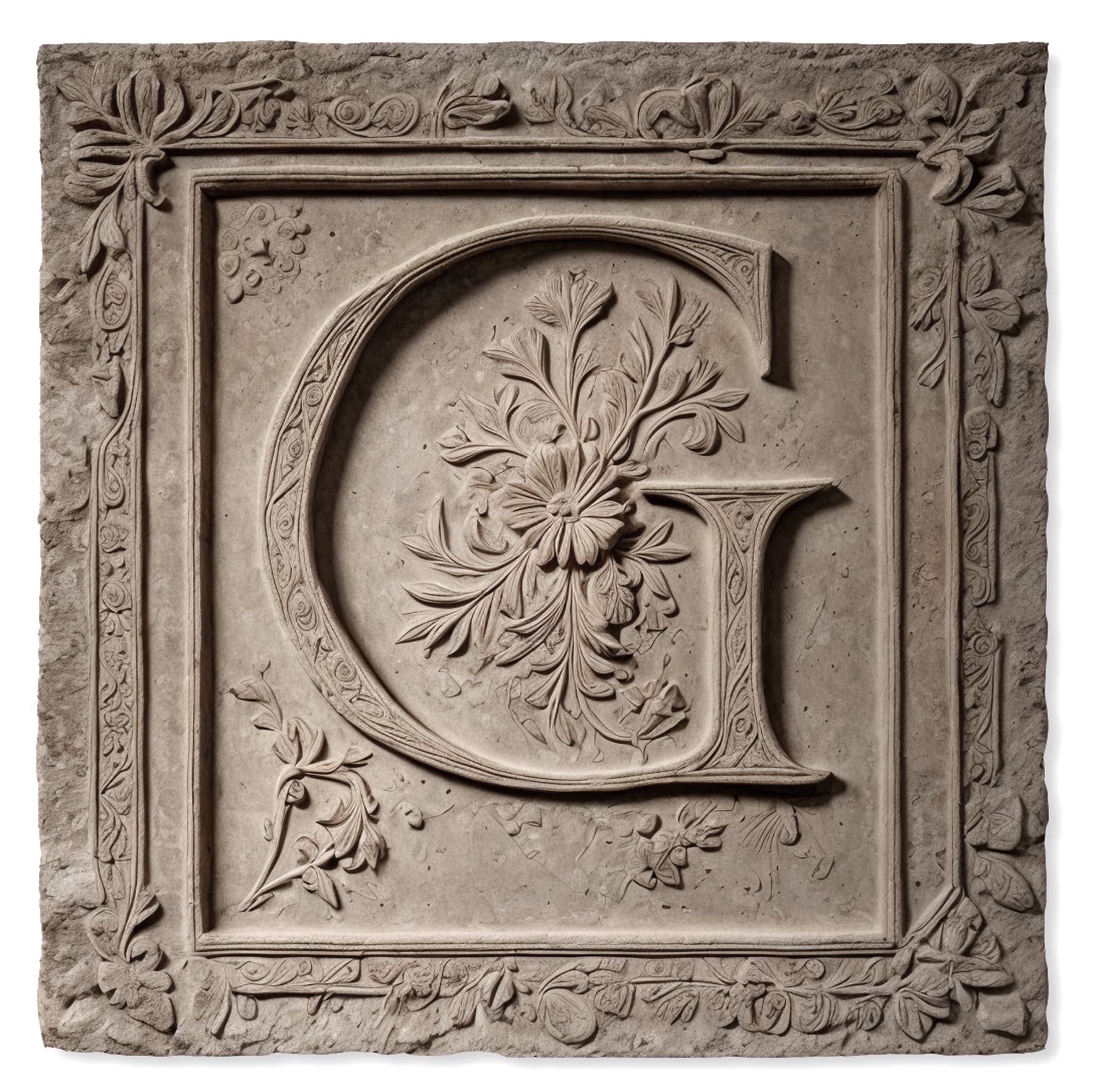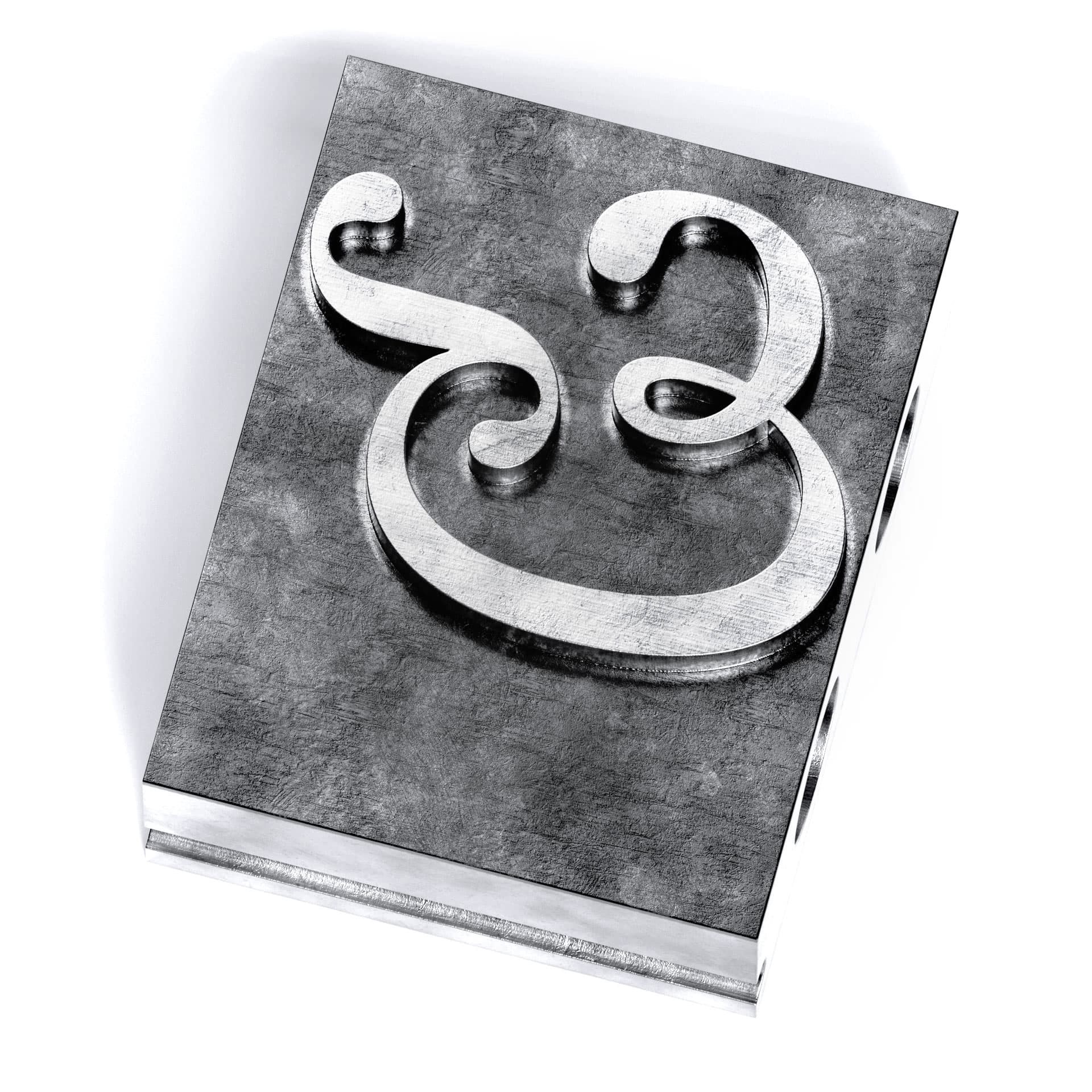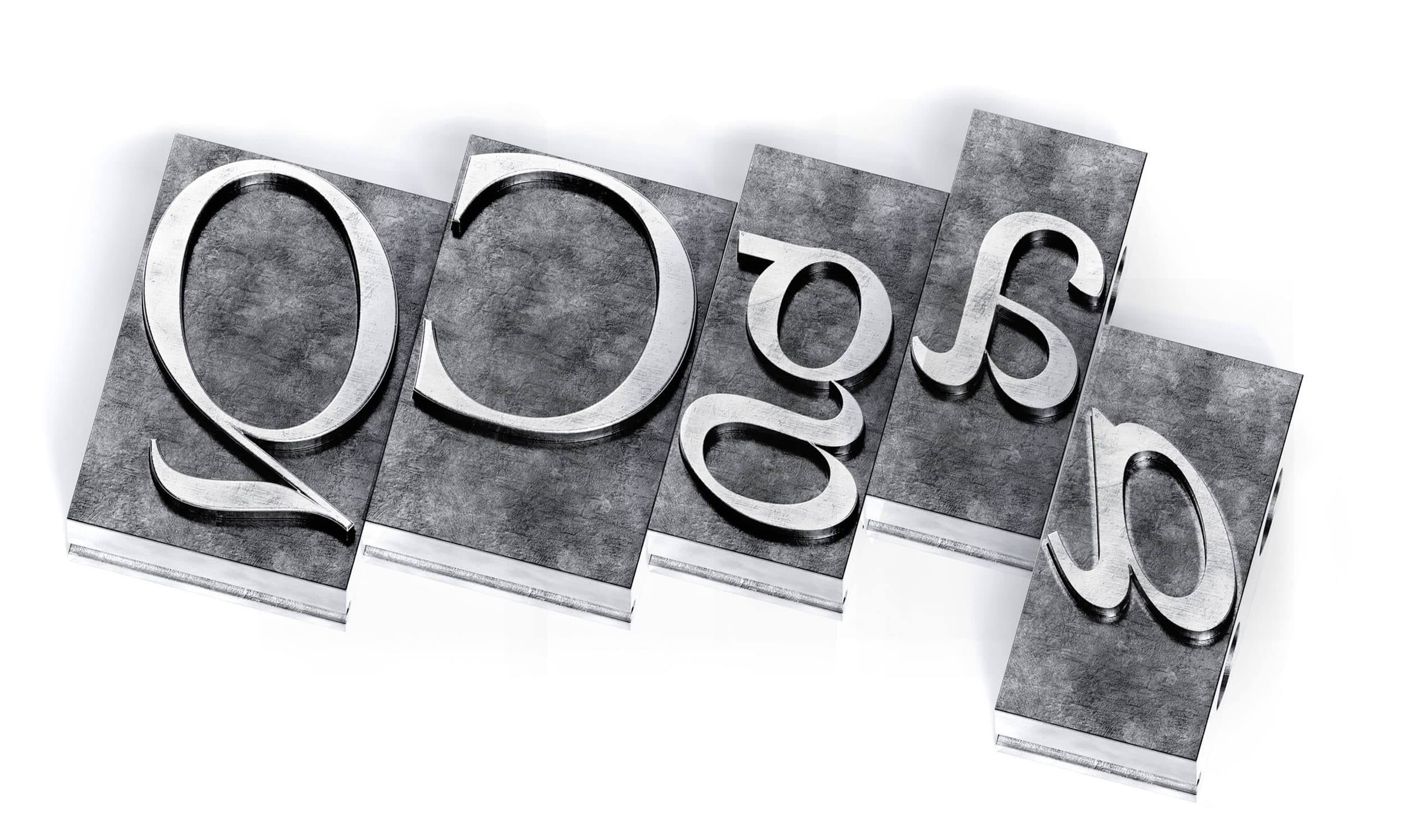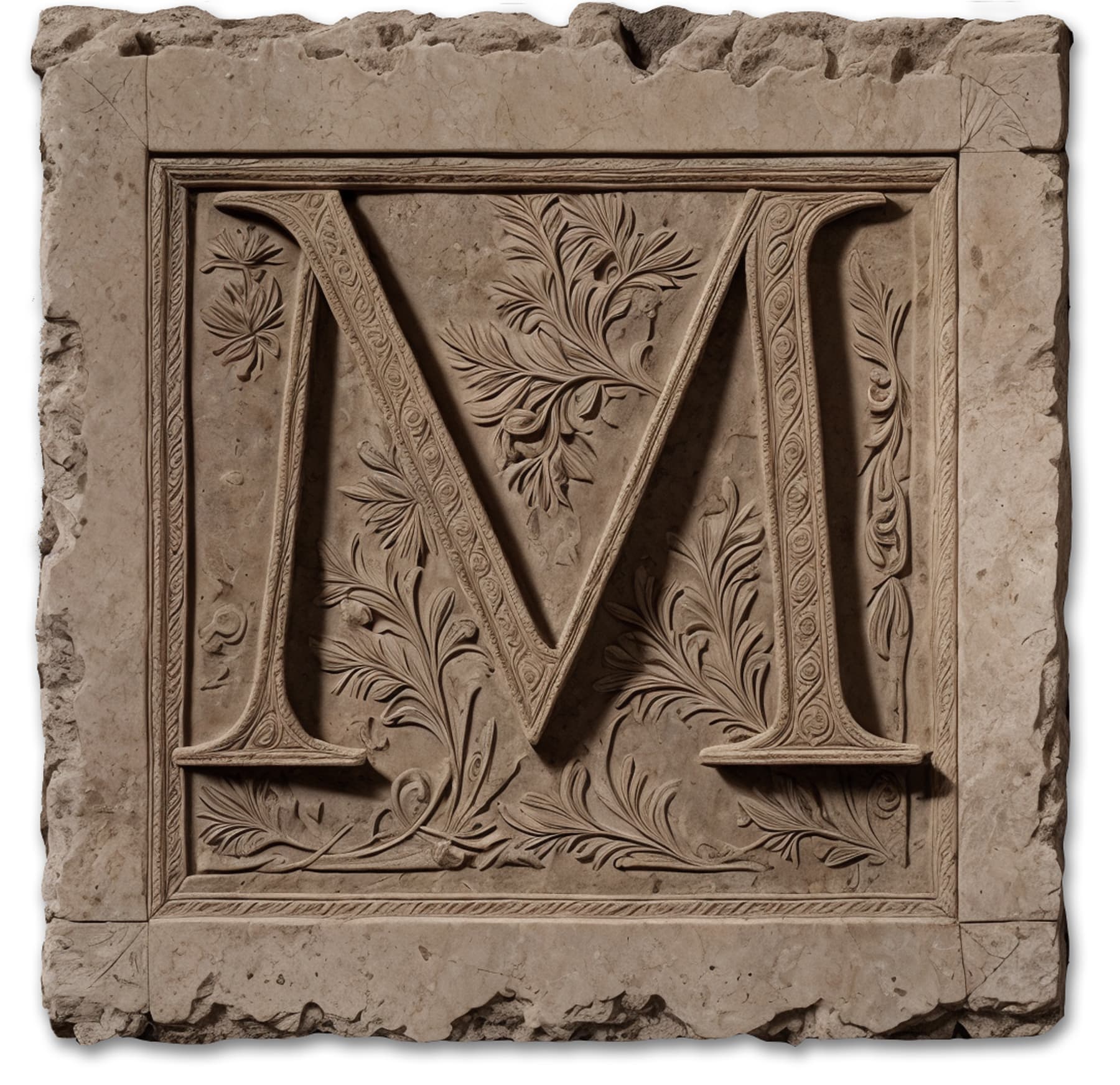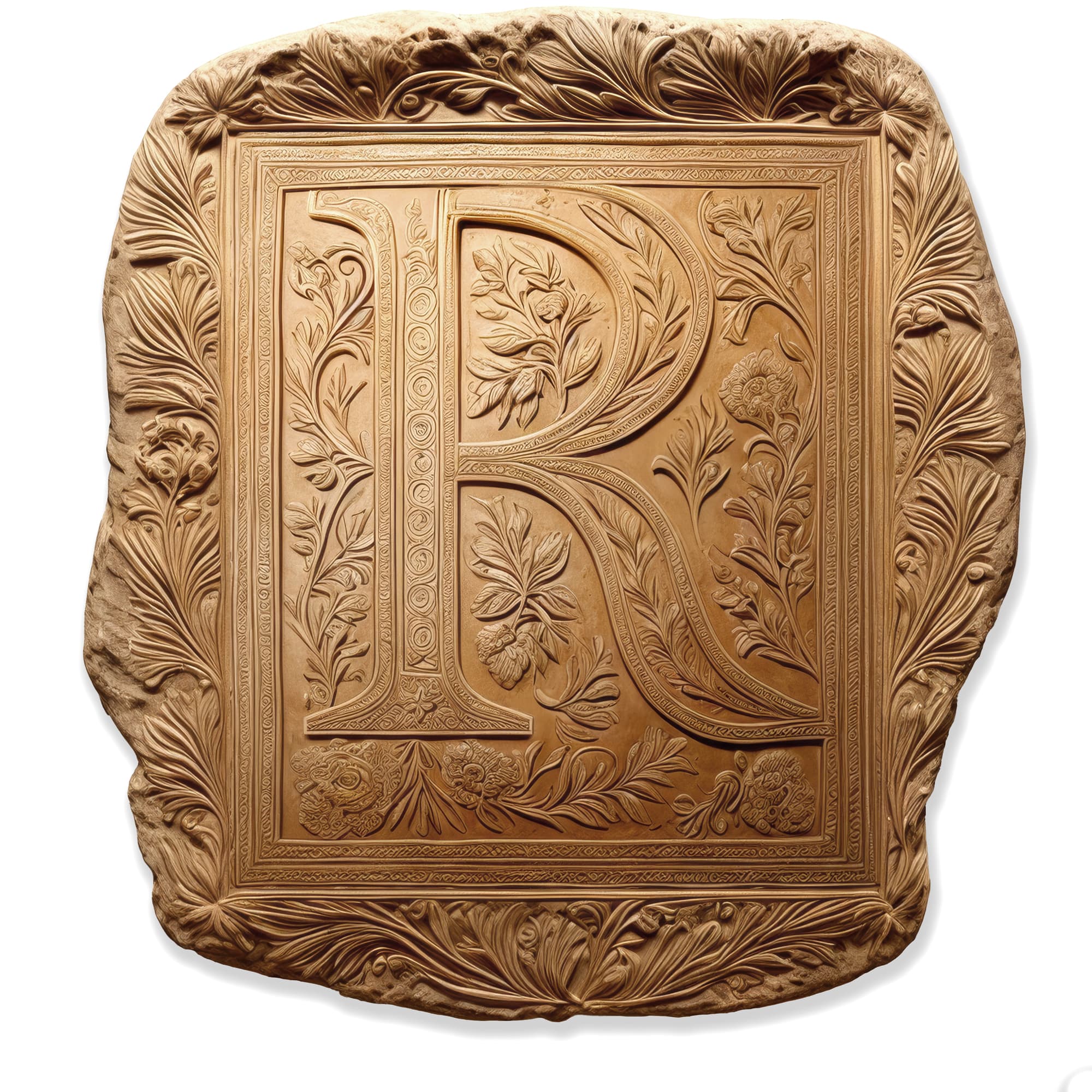
Sharp Serif Text
Sharp Serif is an ode to the classical models of the 15th-century Italian masters and French renaissance types, alchemically reconfigured for the present day. The second textface by Lucas Sharp, Sharp Serif combines the novel ideation of its creator with the ineffable qualities of these classical forms into a contemporary serif text face that is both beautiful and eminently accessible.
Type Director: Lucas Sharp | Designers: Connor Davenport, My-Lan Thuong & Léna Le Pommelet | Engineer: Calvin Kwok | Kerning: Igino Marini & Lucas Sharp